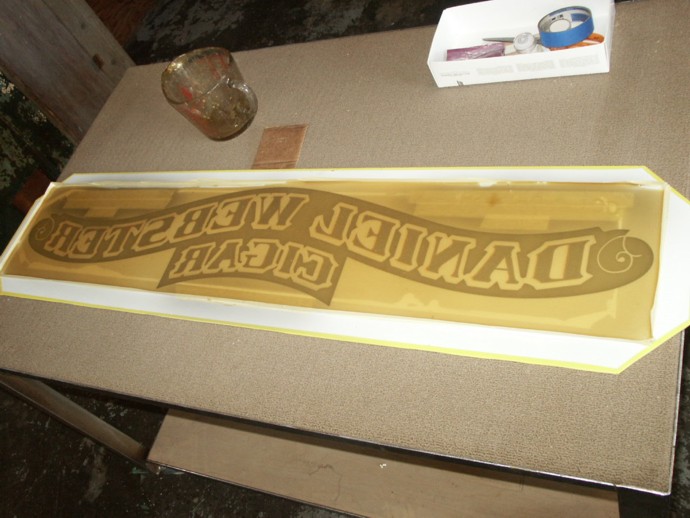
Original Dead Men
Re: Original Dead Men
The town is hurrying right along.
The brick building came out rather nice, if I may say so myself.
Wonder how other clavers are fairing?......
Re: Original Dead Men
Looking good Monsuer.
Re: Original Dead Men
That looks like a pretty strong brick bank, that will keep all those bank robbers out.
Is that abalone in your windows? Effective idea.
Re: Original Dead Men
If I ever meet one of you Conclave waddies that
actually finishes his project piece after the meet,
I think I will shake his hand and give him a Daniel Webster cigar.
Yes, abalone windows.
Re: Original Dead Men
We don’t know those boys you are looking for........
Re: Original Dead Men
They are weary gilders.
. . . Who worked him over with the ugly stick?
Those two on the end,
cut 'em out.
Do like I tell ya!
Re: Original Dead Men
I wasn't expecting any...present....
Got this little gem from one Mr. Benmont Tench.
He sure can scratch. Broke the mold after him.
Now it lies amongst my prized possesions.
Re: Original Dead Men
Did up this little ditty for Machine on
Mental Health Day. Two tones of face
up acid embossing, followed by antique
silvering.
Re: Original Dead Men
You just keep on as you are, we'll be gettin' together soon enough.
By then, the sign will be hung, you can see it, personally.
Re: Original Dead Men
The people at Dickinson Metalworks cordially invite you to the Grand Opening of,
The Esperanza Hotel
When it's time to build, BUILD! ....don't gild!
Re: Original Dead Men
Very good Larry, man you put some work into these buildings.
Re: Original Dead Men
Recycled everything...old crates from the recycler make the walls,
old pallets covered with planks scrounged from a construction site,
windows, door, and roof tiles donated from Dead Men, hacked up
head boards I found in the alley, sign lettered on a an old wood tray
decor from who knows where...even an old Chevy's sombraro!
Ah....it's a turkey shoot.....
Re: Original Dead Men
Another fine building and.... hey, is that Schofield's scalp I see?
Re: Original Dead Men
Hey Jenco, the next time you come over for a wedge of beef,
I got a new place to grind....the lookout tower in Fort Harmon!
We'll be fine...as long as the cards don't blow away!
-Chief Billy!
Re: Original Dead Men
You display great poise.
It's gonna be a beautiful fort, Harmon.
Re: Original Dead Men
We had a lively time....
at our little Coon Hunt (Dead Man 2011)
Re: Original Dead Men
I seen some photos of this place a short time ago.....
Photos from Machine
We too, had lively times....
6:30 am Sun Morning, Town of Machine
Are you guy's still here??
Re: Original Dead Men
who's all in there?
Re: Original Dead Men
Arial view of the shop being trashed by a bunch of Free Gilders....
You're still doin' that?
YES
WE
ARE!
Re: Original Dead Men
It's easy to find me....
I'm somewhere between the acid lounge and the glue pot!
I leave a trail wherever I go....
a trail of bright, shiny, gilded glass!
any these, kick me down a copy!
See, aren't you glad you look at the ODM post!